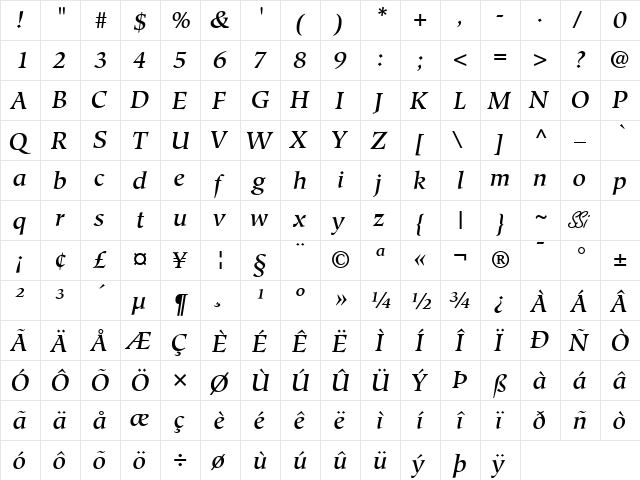
Glossary Medium SSi Medium Italic
Design Context for Glossary Medium SSi Typeface
Glossary Medium SSi takes a measured approach to typography — its balanced proportions and neutral character make it a reliable workhorse for both digital and print work. Its italic angle brings a sense of urgency and motion to the letterforms.
Pro Tip: Use Glossary Medium SSi for emphasis, pull quotes, and subheadings where its slanted energy can add rhythm to the layout.